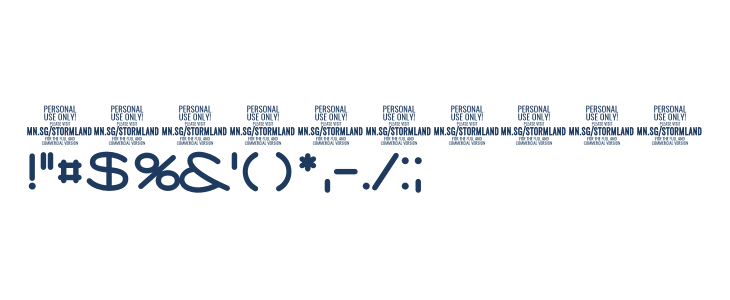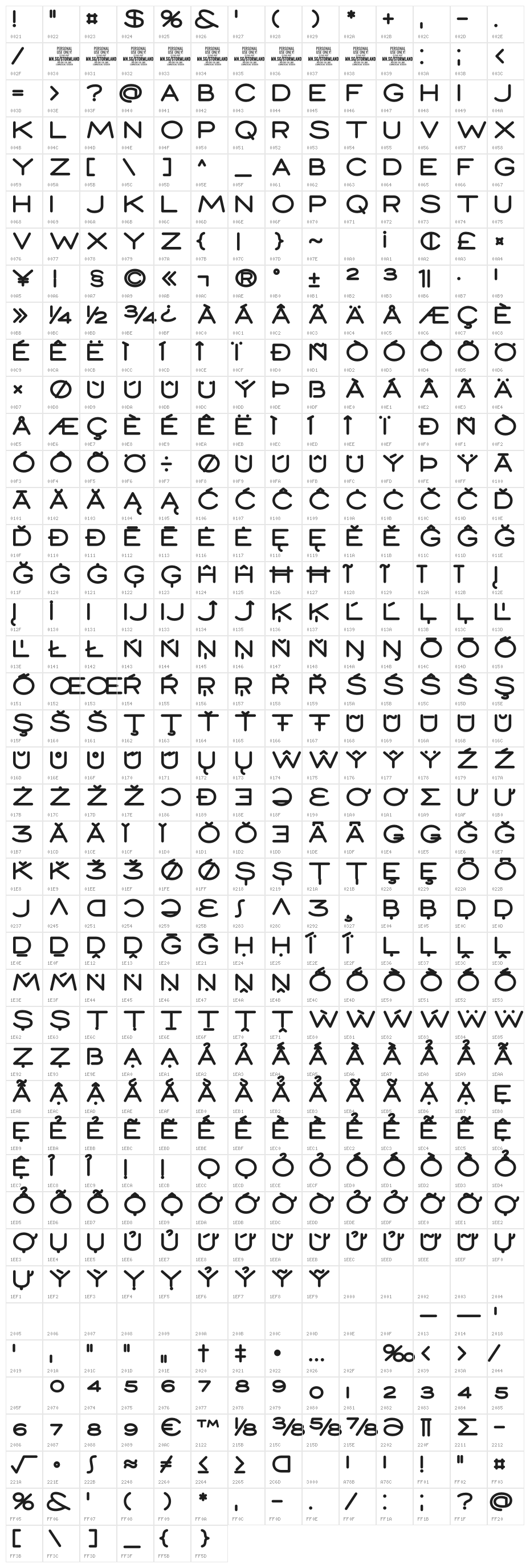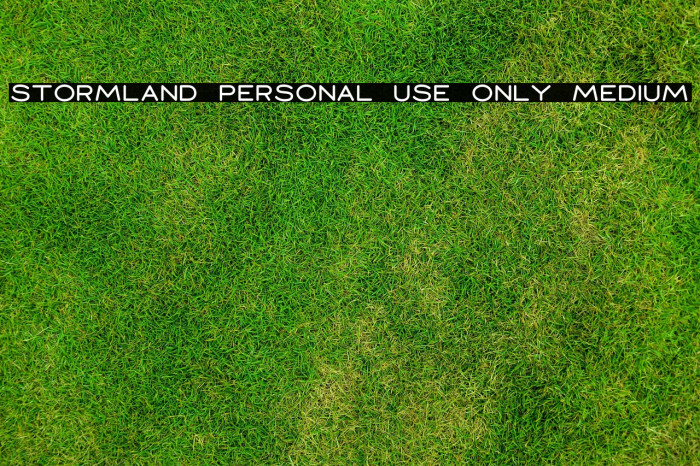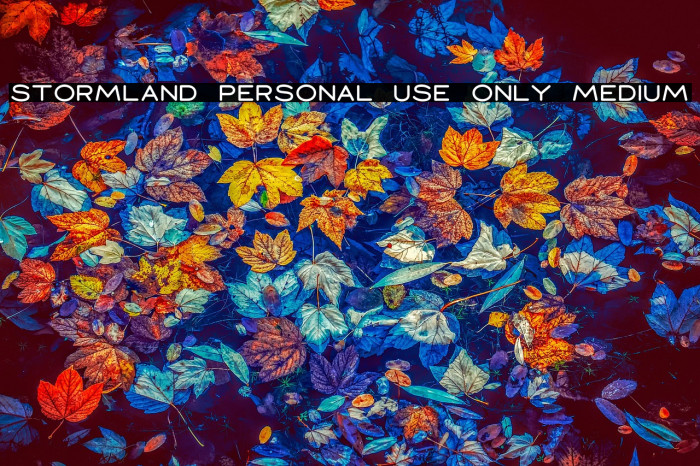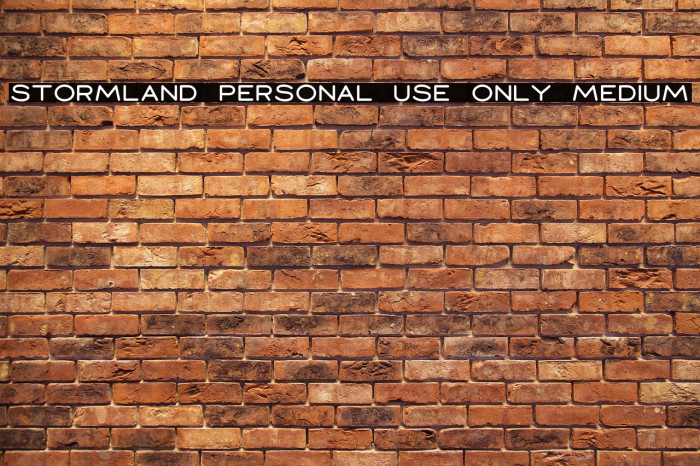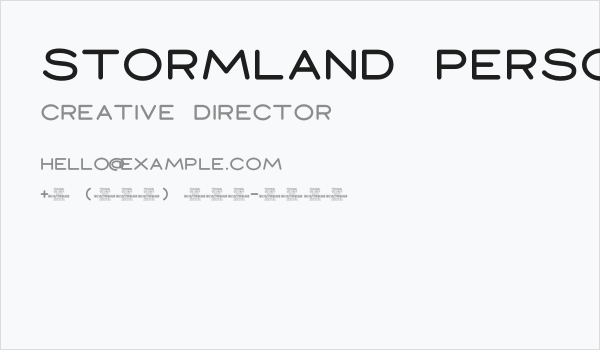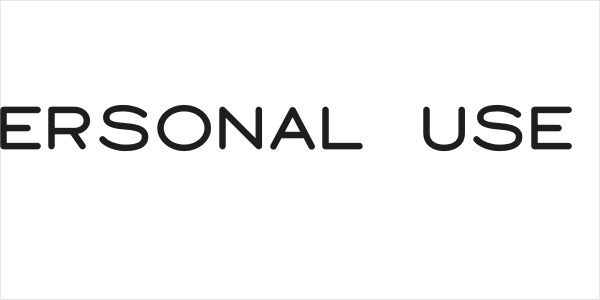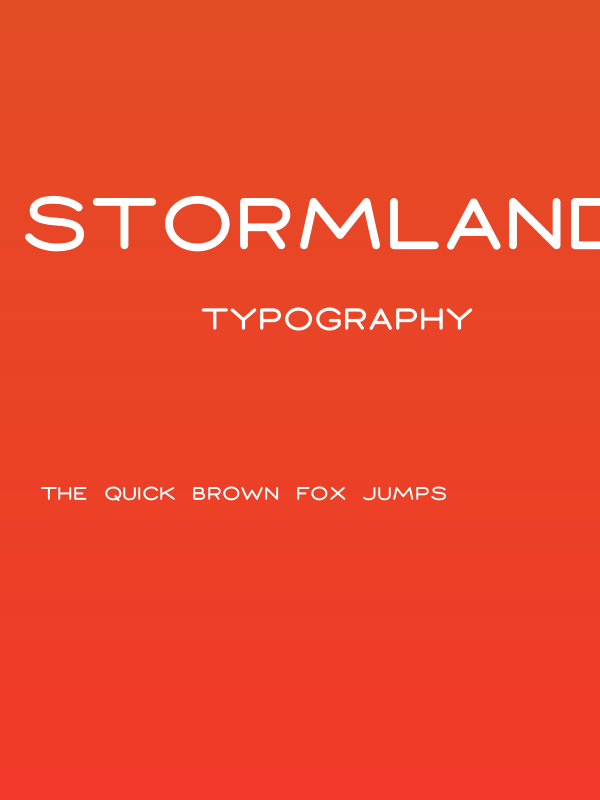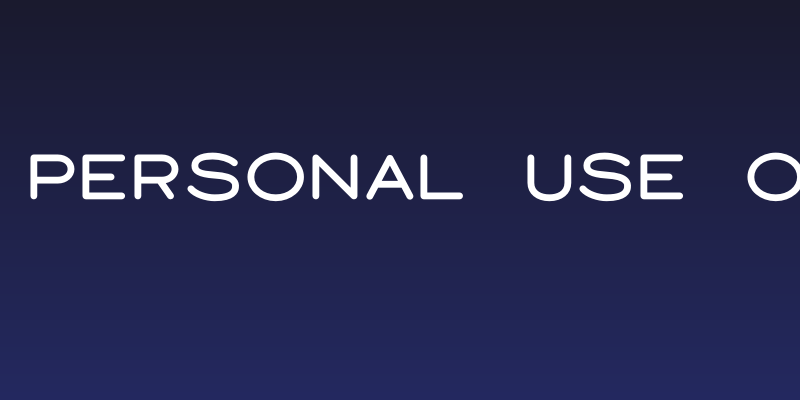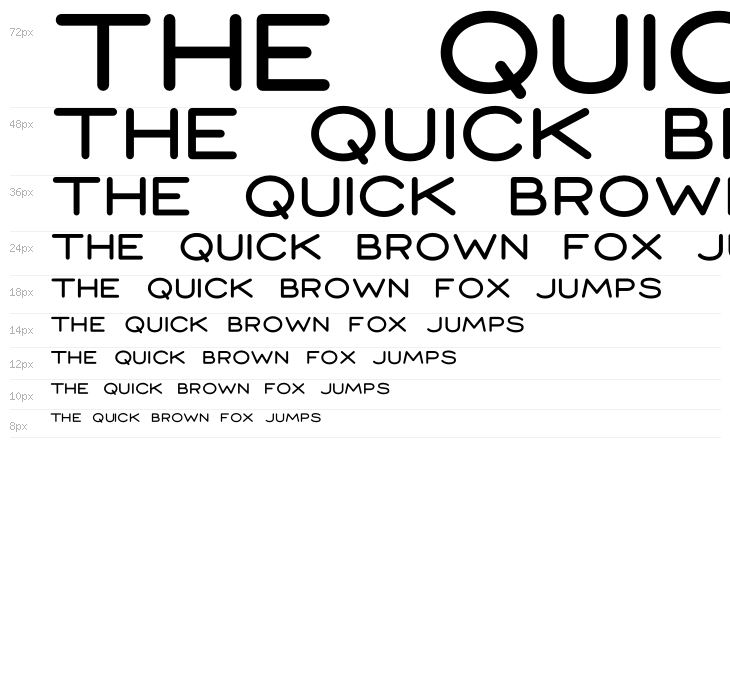
Stormland PERSONAL USE ONLY Medium Font
Stormland PERSONAL USE ONLY Medium Description
This font features a modern, sleek design with rounded edges and a clean, minimalistic appearance. The characters are uniformly structured, providing a sense of balance and harmony. The uppercase and lowercase letters maintain a consistent style, with smooth curves and a slightly geometric feel. The numerals and special characters complement the alphabet with their cohesive design, making the font versatile for various applications. Its simplicity and clarity make it suitable for both digital and print media, ensuring readability and aesthetic appeal.